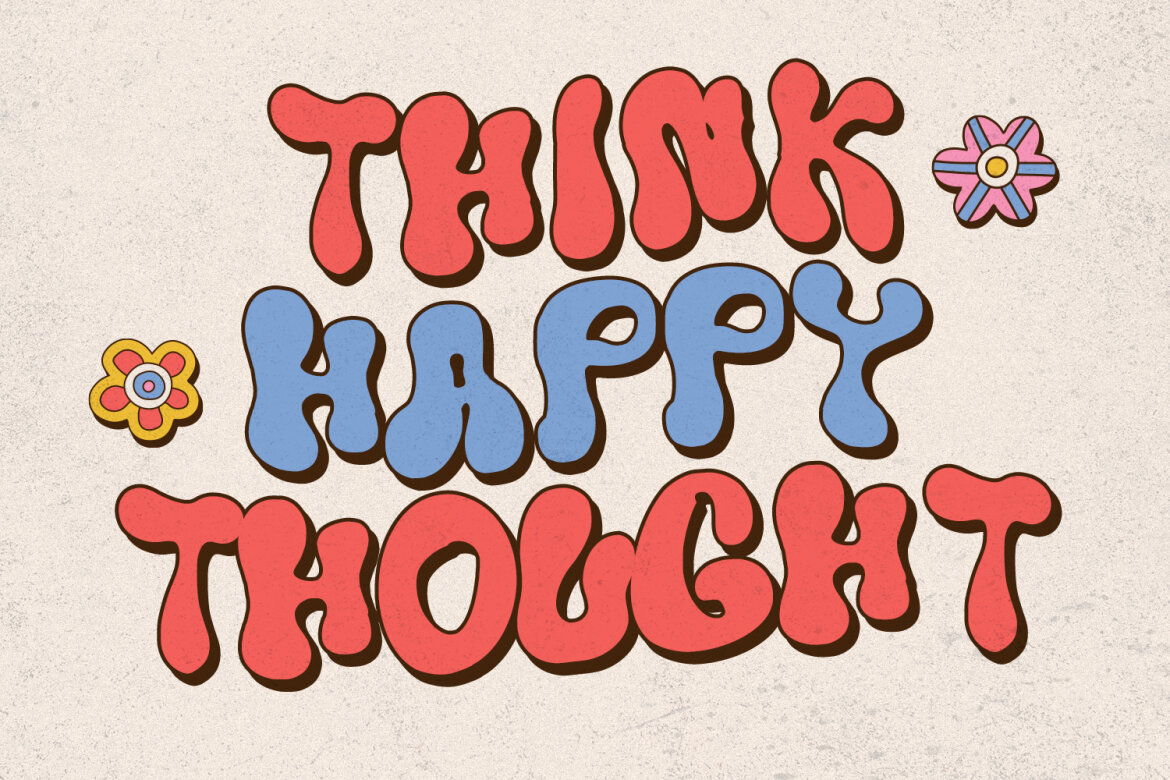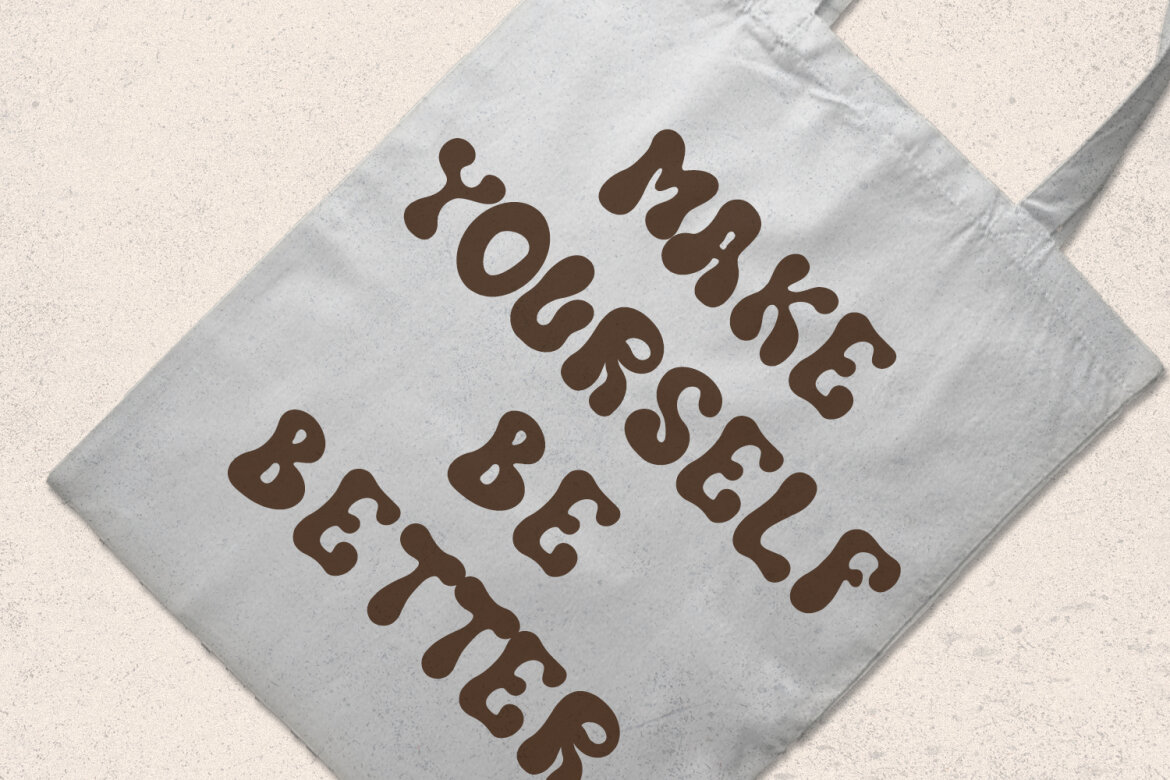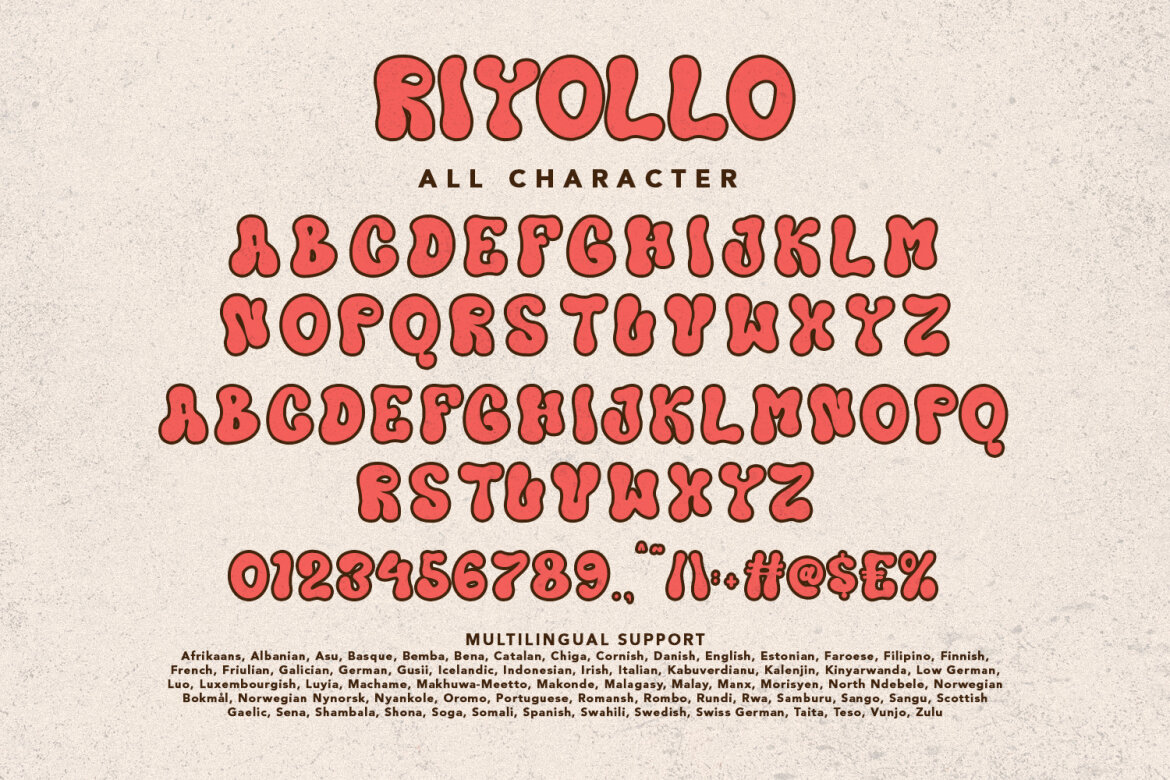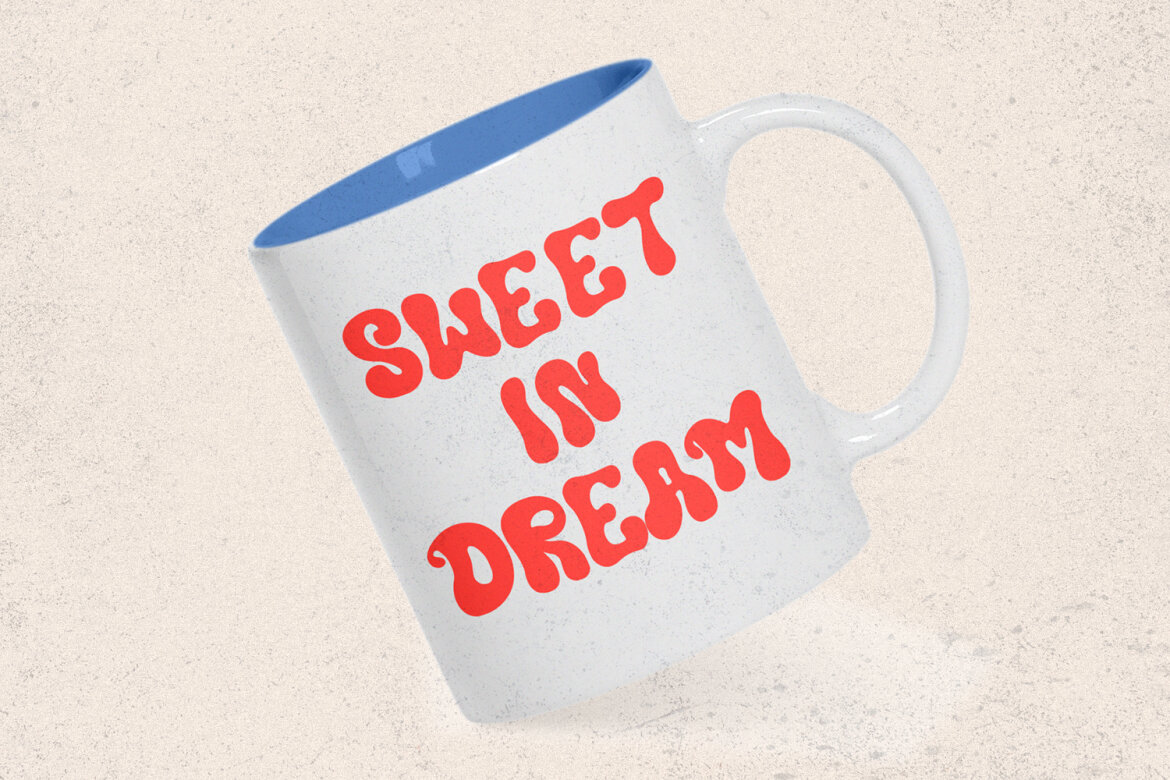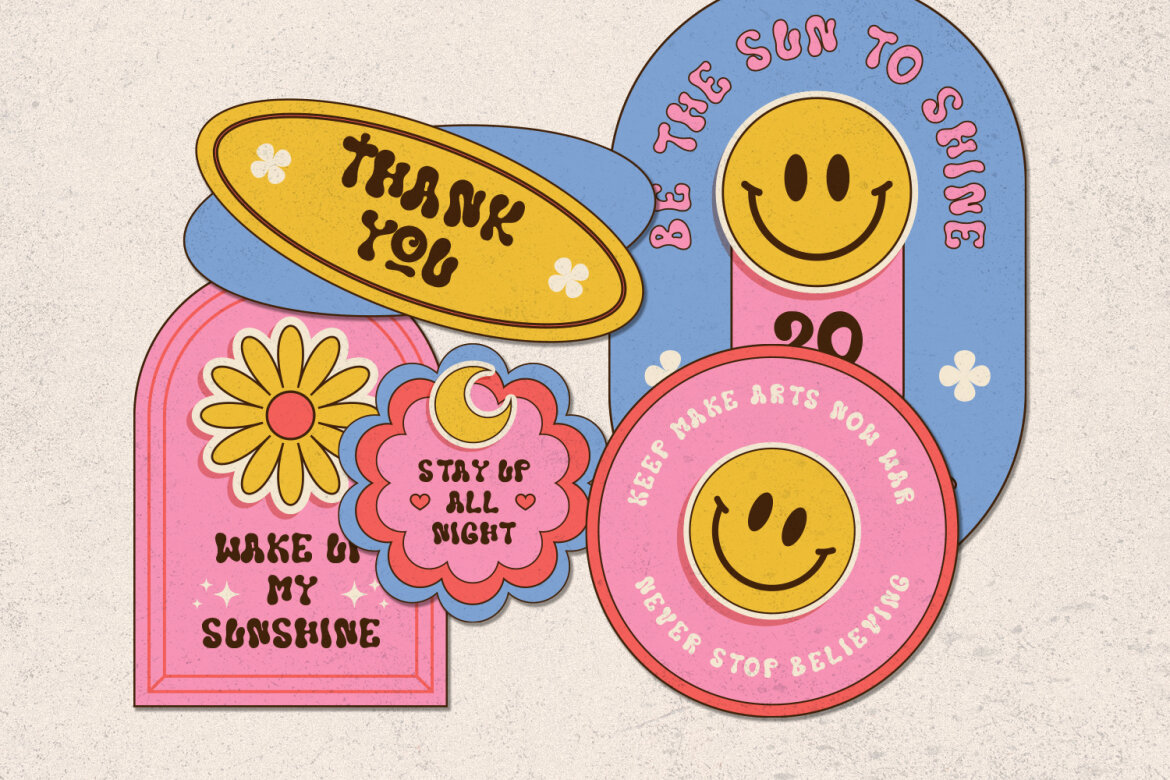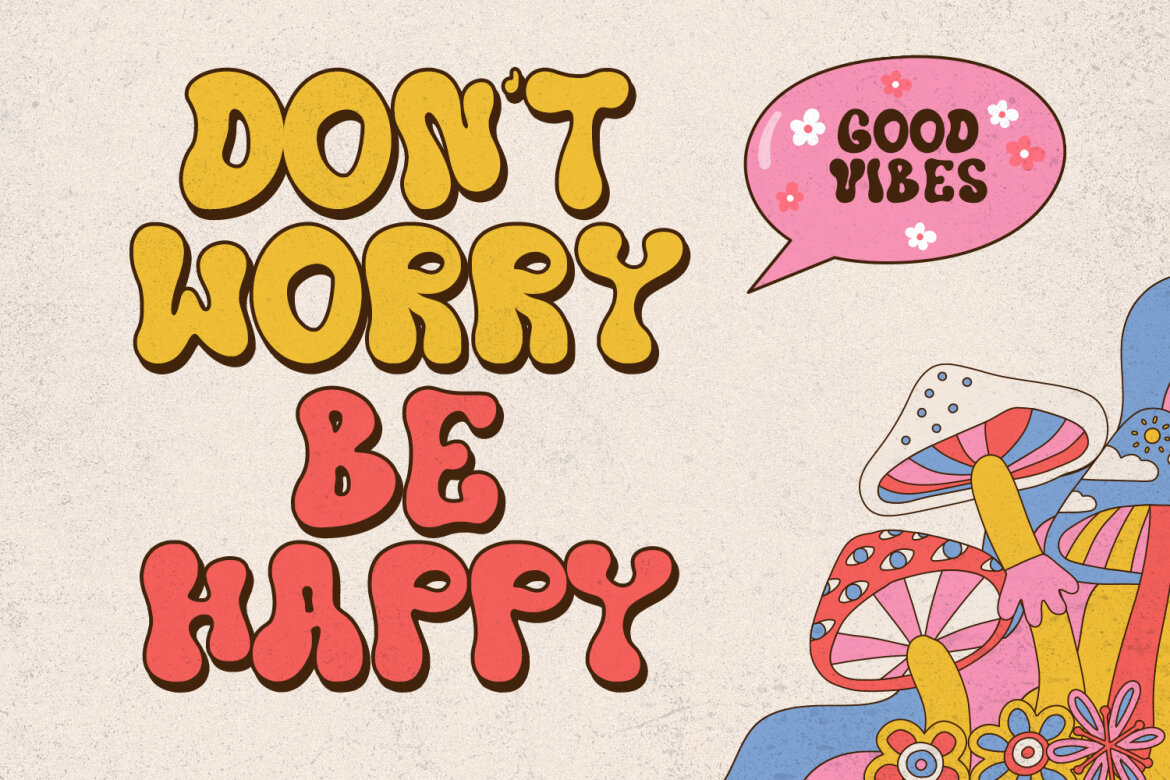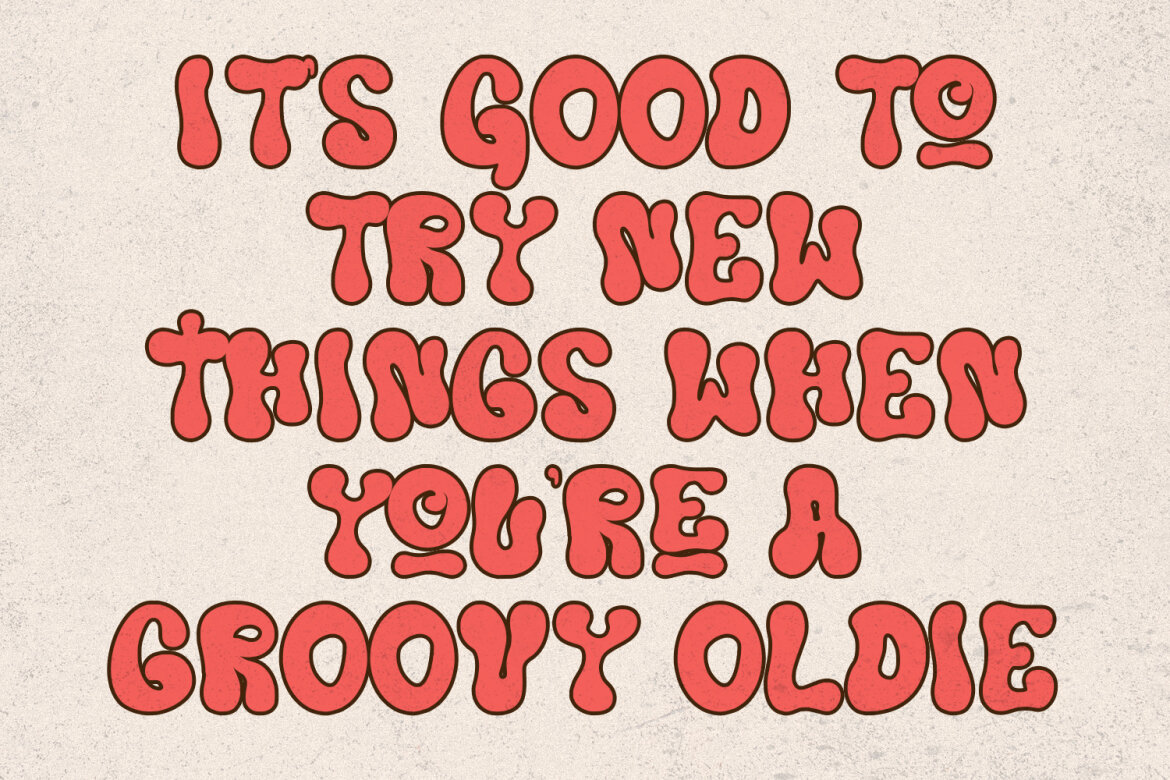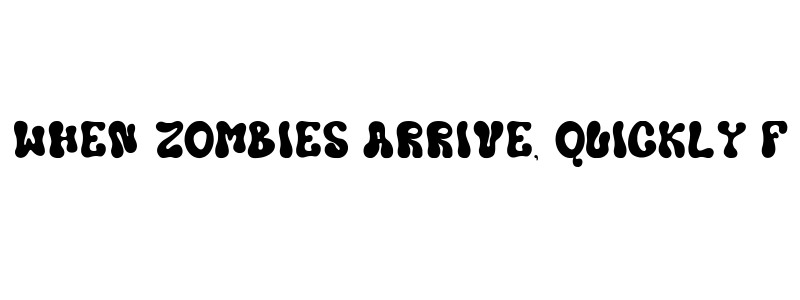
Riyollo Groovy Decorative FREE Font
Riyollo
Riyollo is a modern clean contemporary decorative font. Bold stroke, fun character with a bit of ligatures and alternates. To give you an extra creative work. Riyollo font support multilingual more than 100+ language. This font is good for logo design, Social media, Movie Titles, Books Titles, a short text even a long text letter and good for your secondary text font with script or serif. Make a stunning work with Riyollo font.